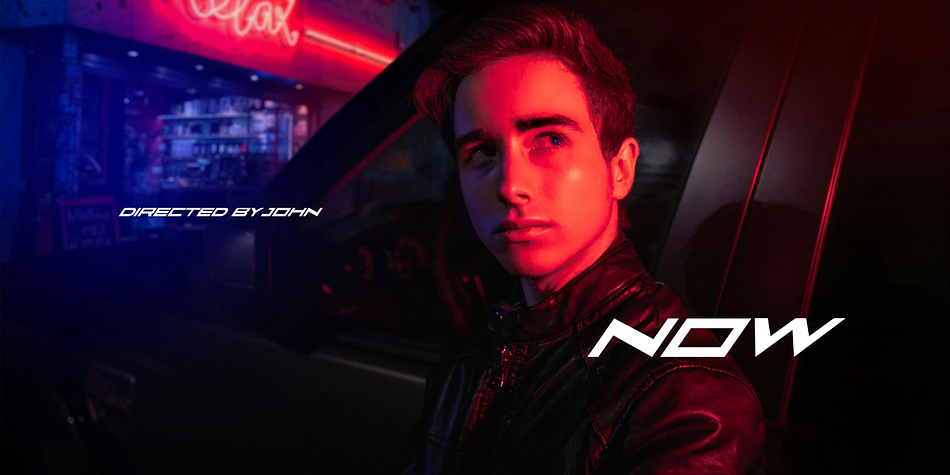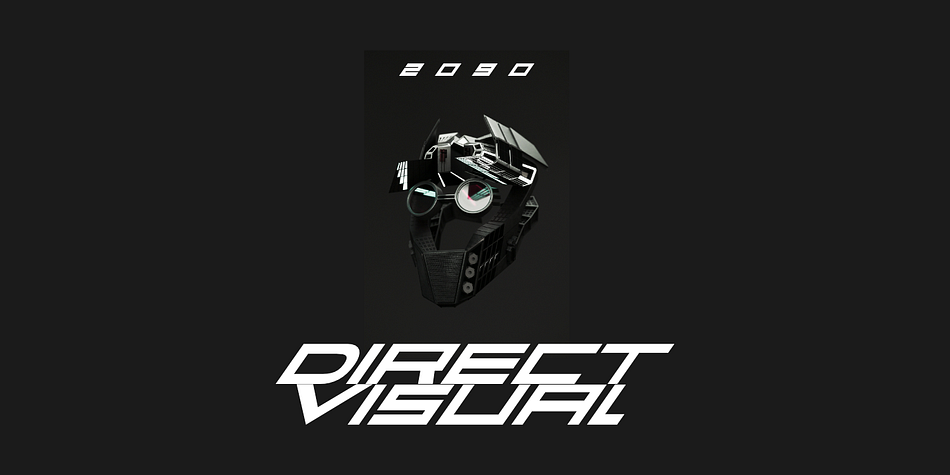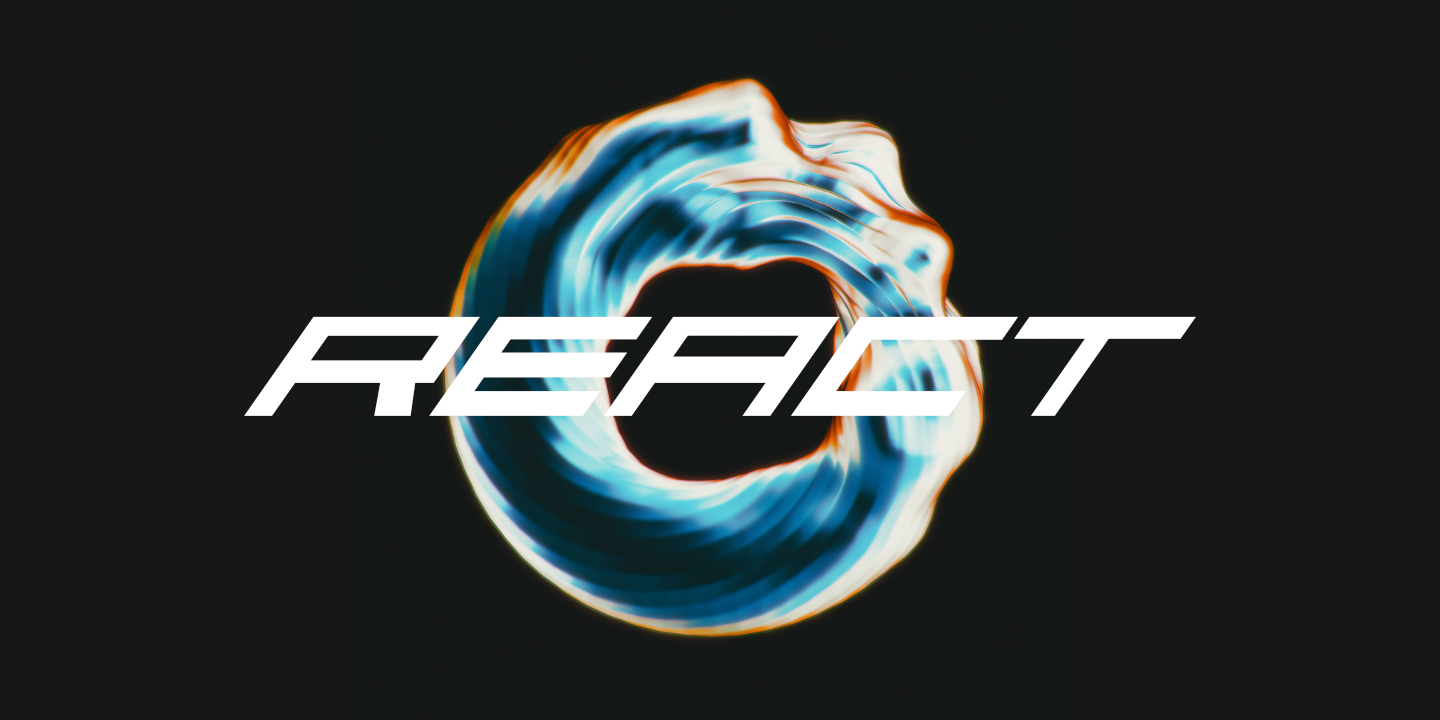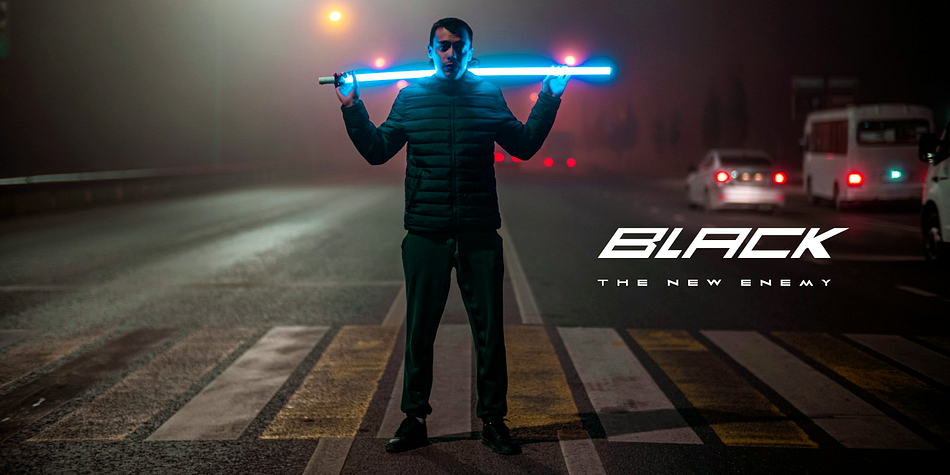
faqro extended slant
faqro extended slant is a display sans font family published by ffeeaarr.
Harnessing the essence of a techno font, we delve into a realm of concise, impactful language, imbued with a cold, clinical or energetic, euphoric tone.